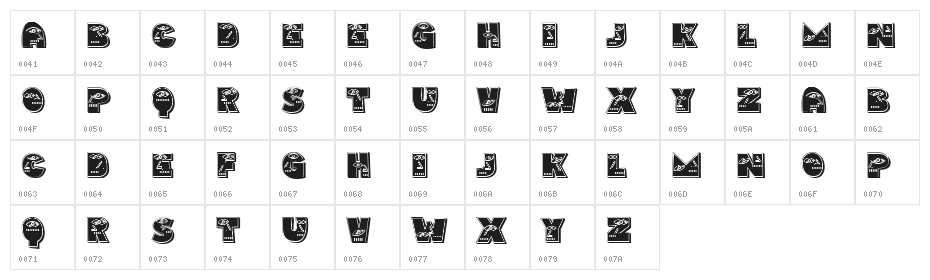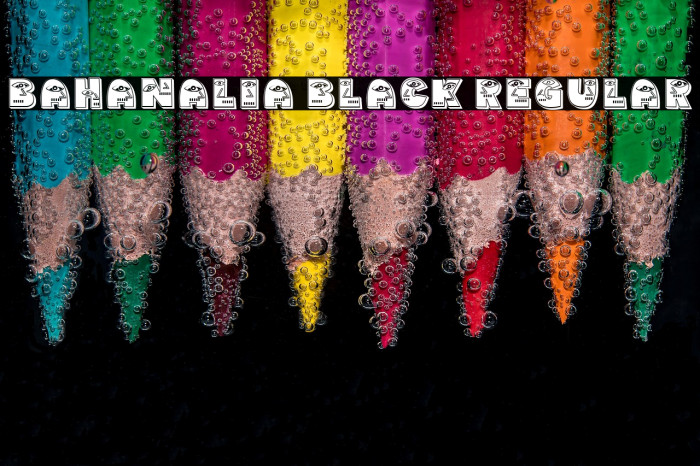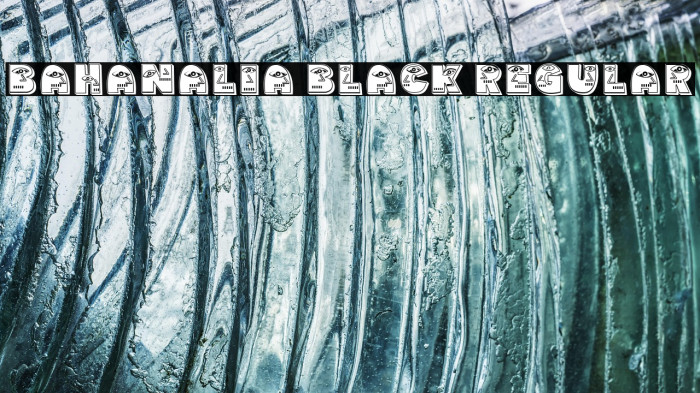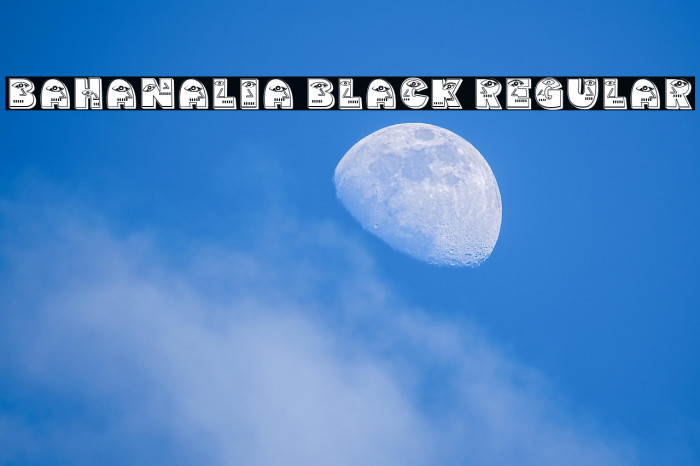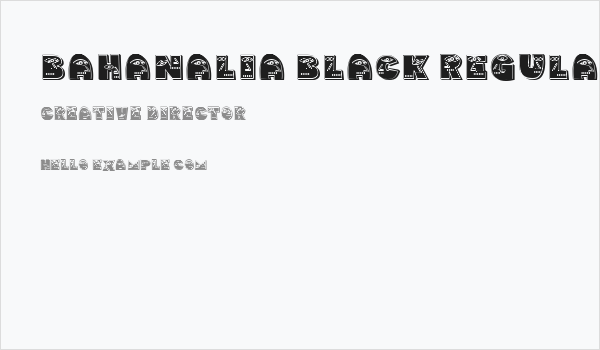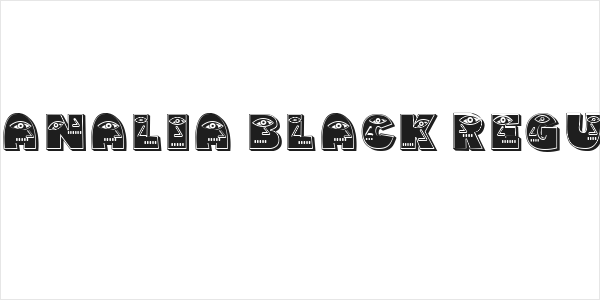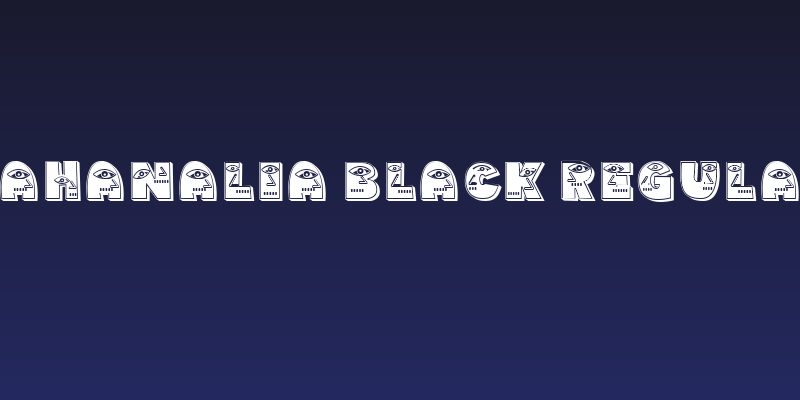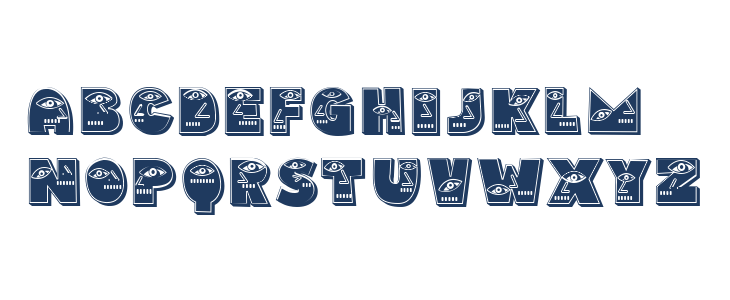
Bahanalia Black Regular Font
Bahanalia Black Regular Description
This font is a bold and playful display typeface characterized by its unique and artistic design. Each letter features intricate patterns and whimsical elements, such as eyes and abstract shapes, giving it a lively and creative appearance. The boldness of the font makes it stand out, while the decorative elements add a touch of fun and creativity. The font is perfect for projects that require a strong visual impact and a sense of individuality. Its artistic style makes it suitable for creative industries, children's books, and any project that aims to capture attention with a unique and engaging design.
Proposed ProjectsIdeal for creative projects, children's books, posters, and branding that requires a unique and eye-catching design.